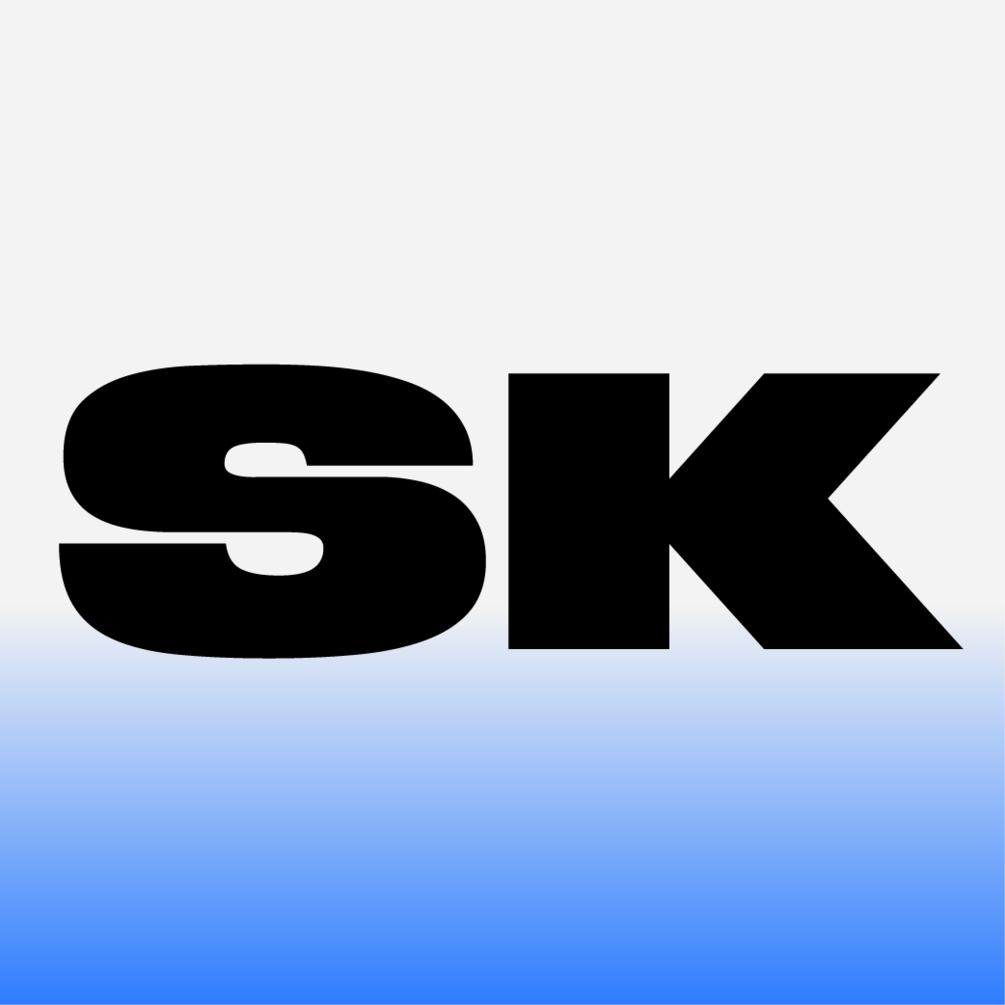
SK Blocktura
SK Blocktura is a massive grotesque with smooth shapes, perfect for headlines. Everything that needs to be emphasized, highlighted, or noticed can be done using this font. Its unprecedented multilingualism will satisfy any type of tasks and projects.